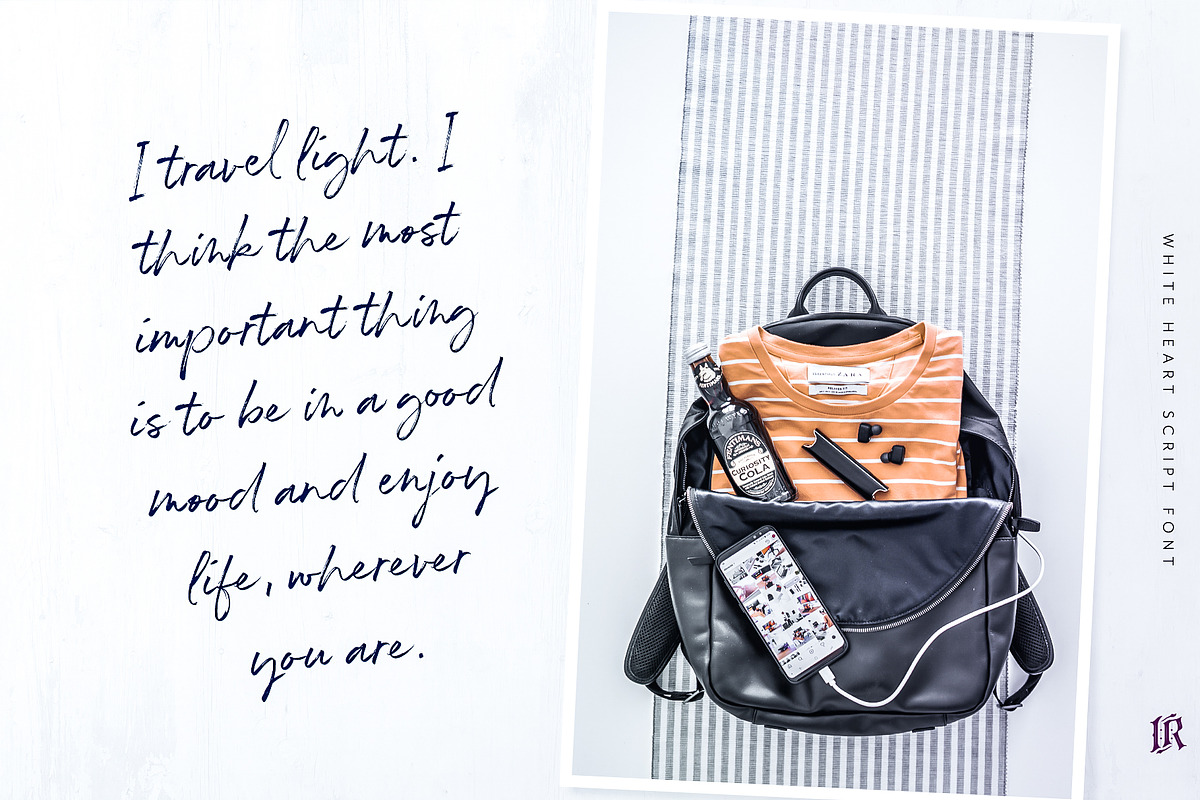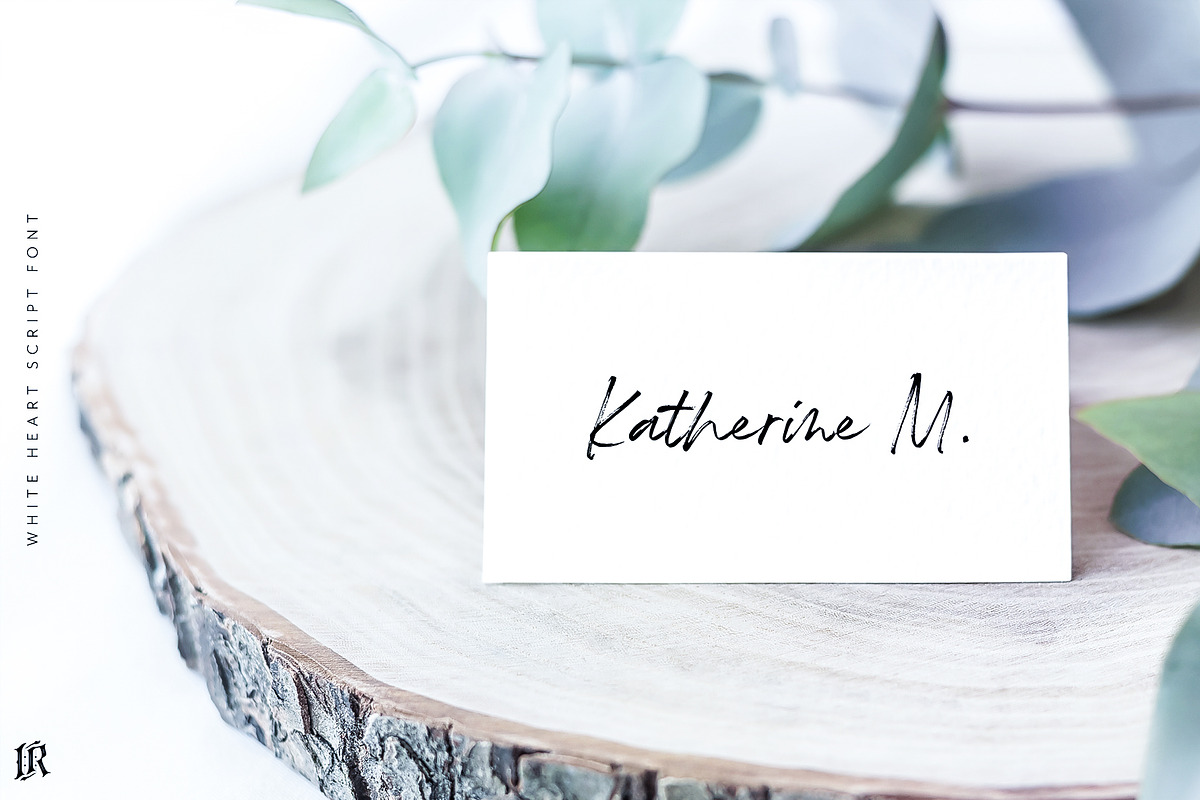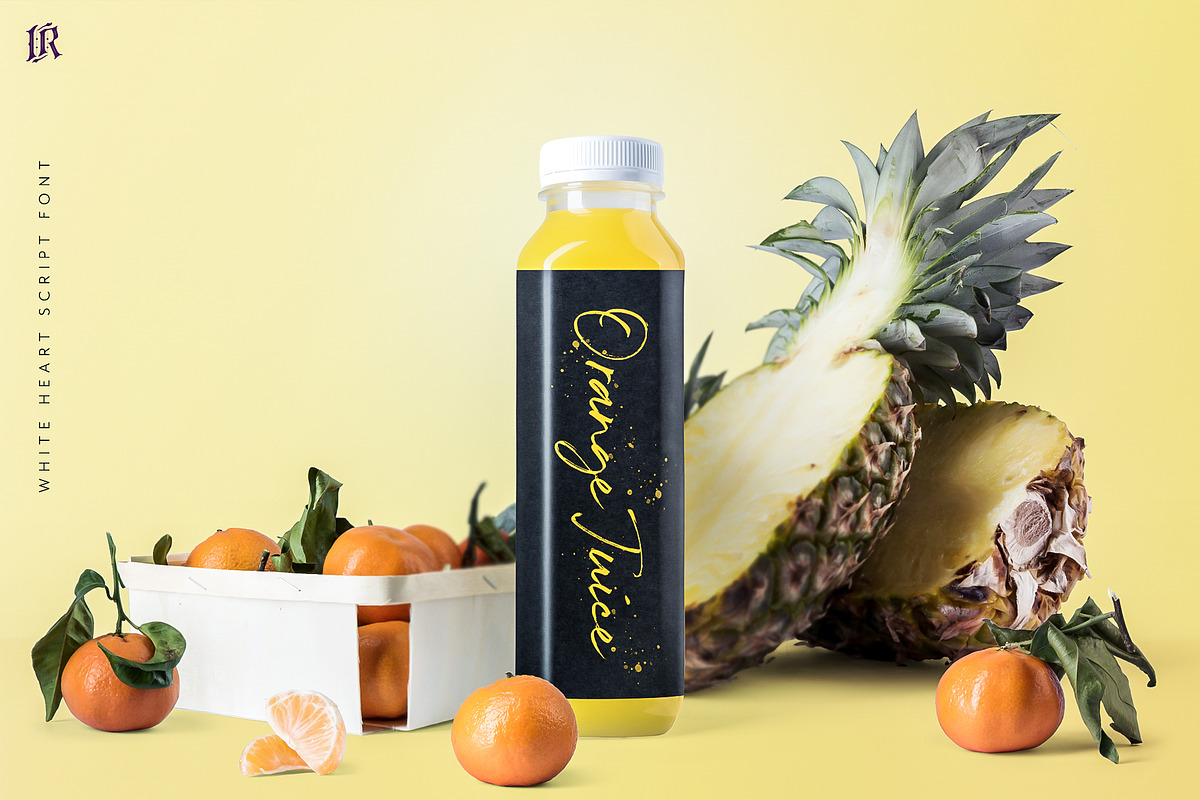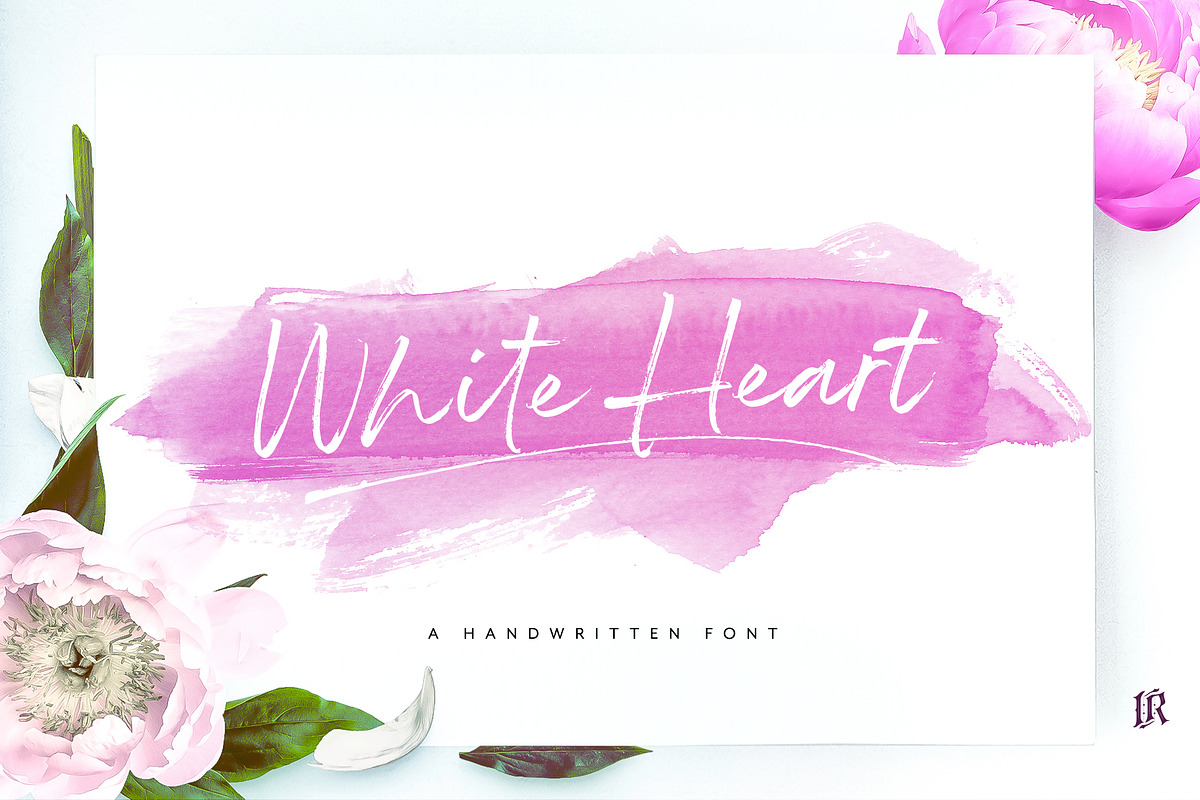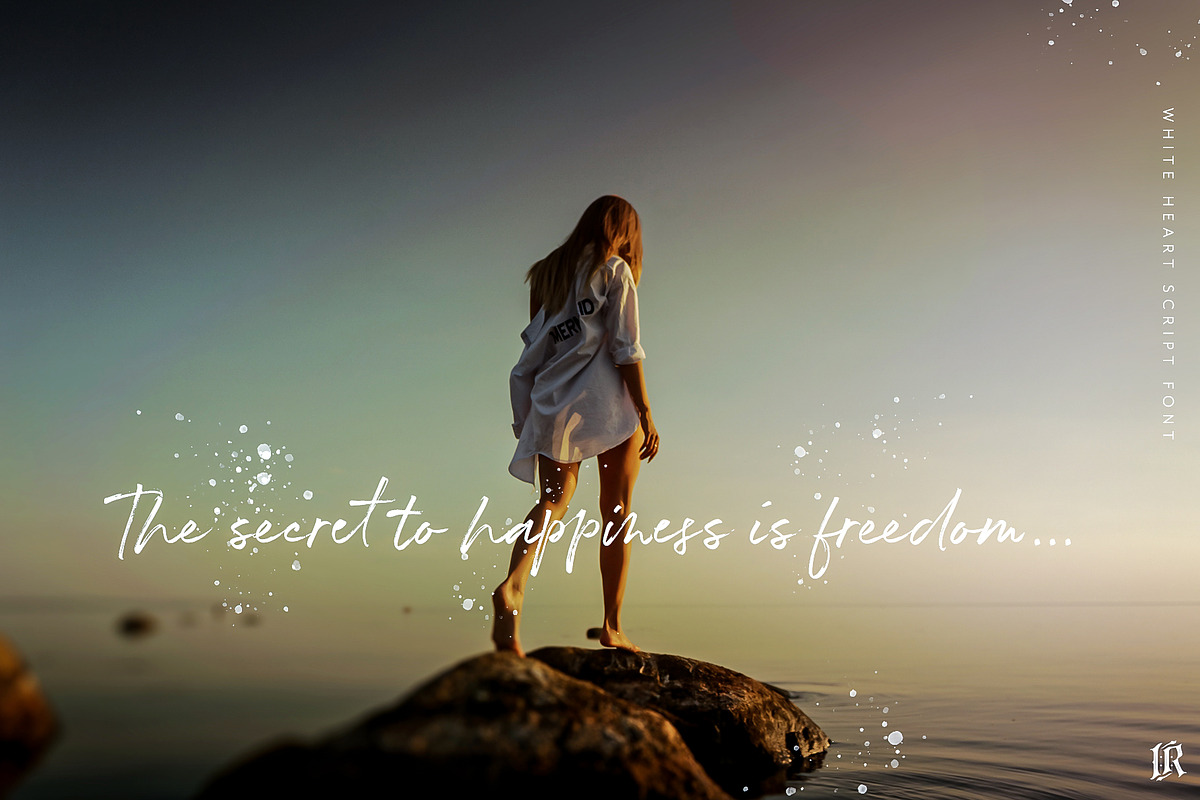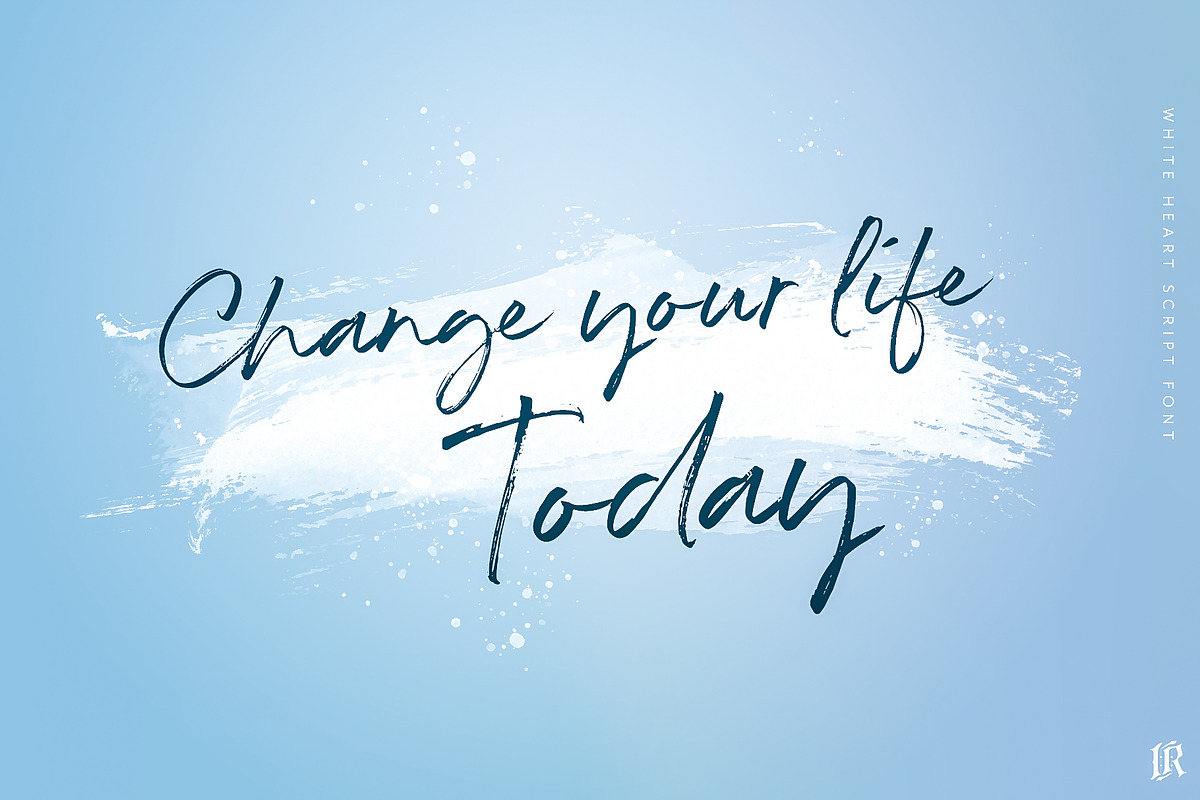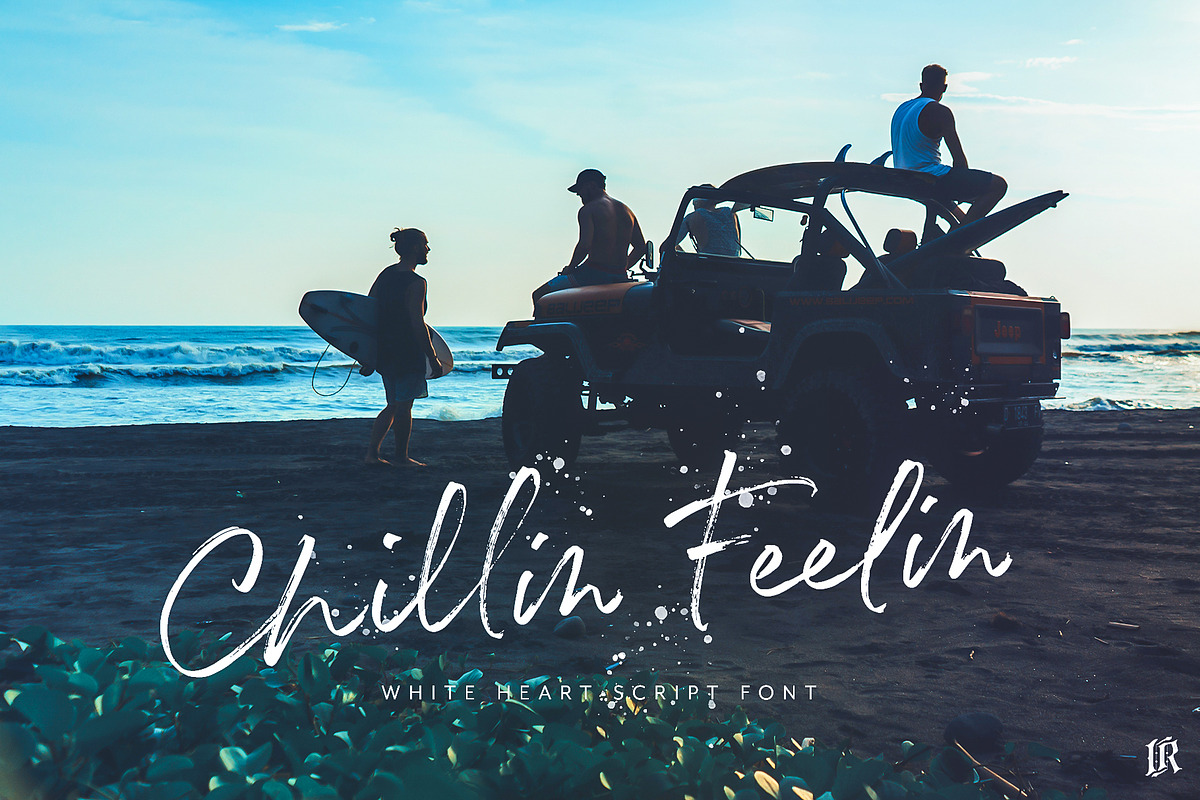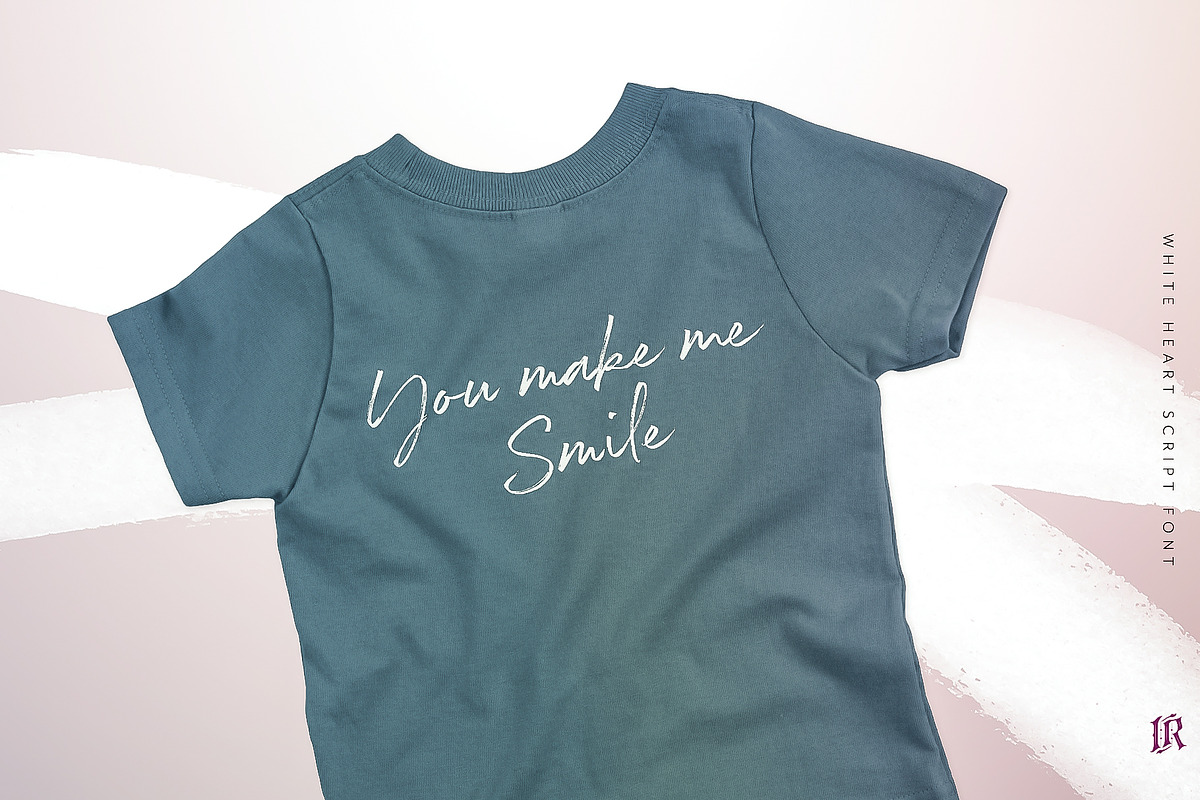
White Heart Font
White Heart is hand brushed font with multilingual support. Is ideal for t-shirts, magazines, phone covers, social media, restaurant menus, greeting cards, invitations, weddings, headers and many more. This brush font comes with a complete set of lowercase and uppercase characters, a large range of punctuation ligatures, numerals, lowercase alternates and and multilingual support.
White Heart, Upper and Lowercase characters with automatic ligatures, numerals, lot of punctuation glyphs and 1 alternate for lowercase characters.
White Heart Alternate The original font, with an alternate set of lowercase letters changed for the standard characters.
White Heart Font by Ivan Rosenberg fits naturally into Branding, posters, packaging, typography.